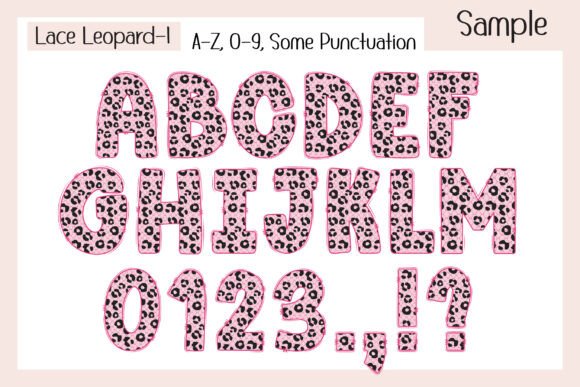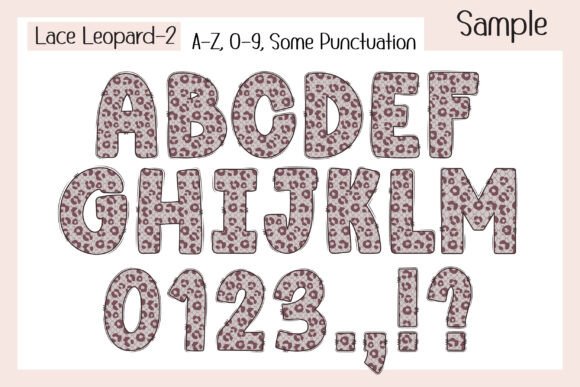
Lace Leopard Font
Introducing Lace Leopard, a unique Color Font that blends the bold, timeless charm of the leopard pattern with the delicate sweetness of lace. This fusion creates a design that’s girly yet edgy, embodying both softness and attitude. Featuring 4 color variations and 20 matching doodle cliparts, this font is perfect for girly shirts, trendy merch sublimation, custom names, DIY craft projects, and more. Whether you’re designing fashion-forward prints or adding a fierce yet feminine touch to your creations, Lace Leopard brings the perfect balance of wild and sweet.